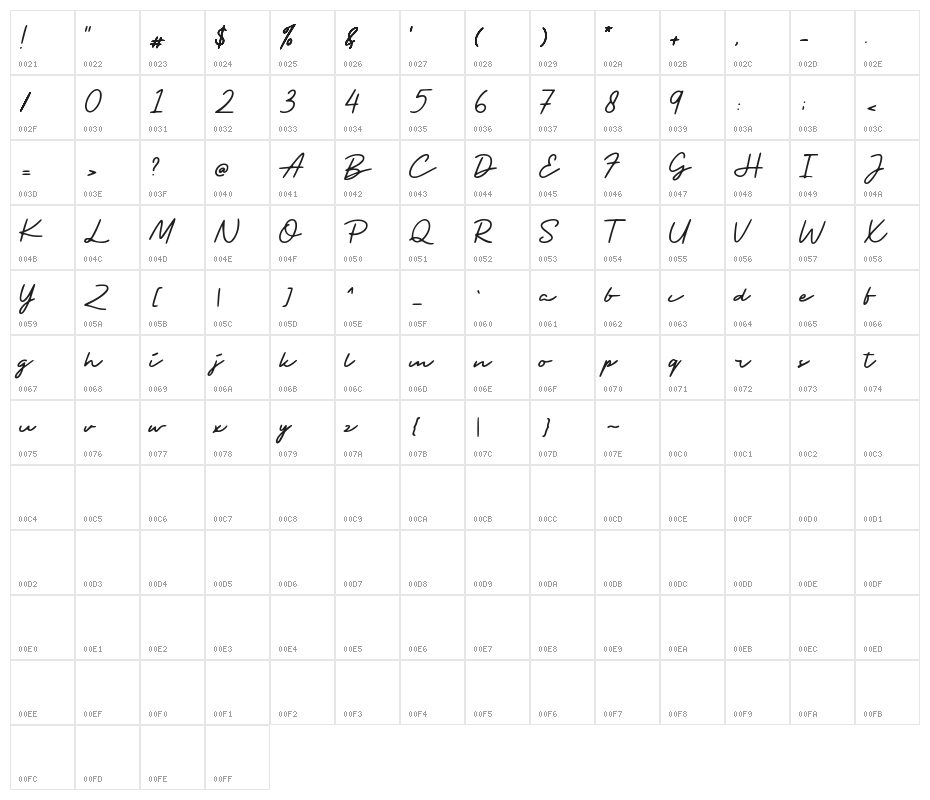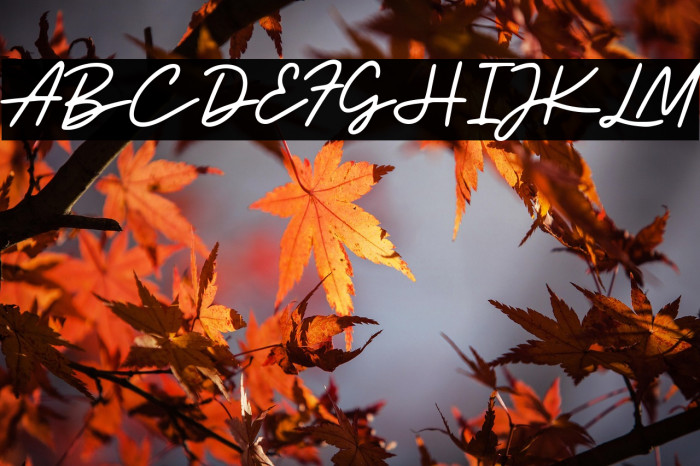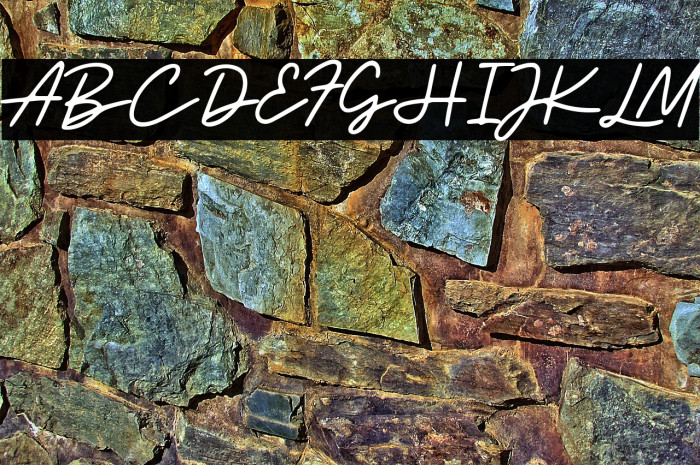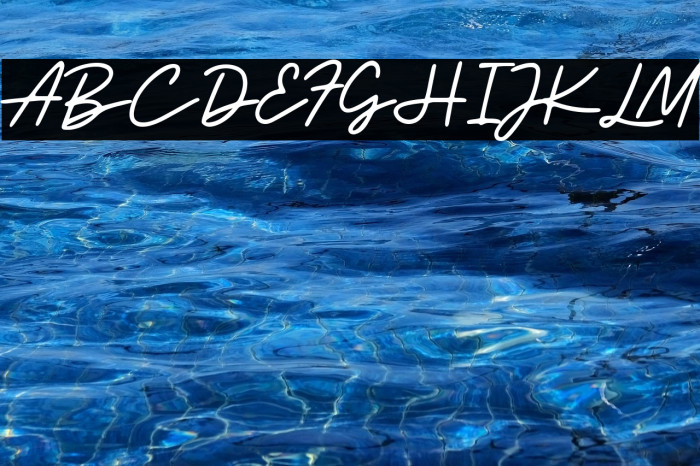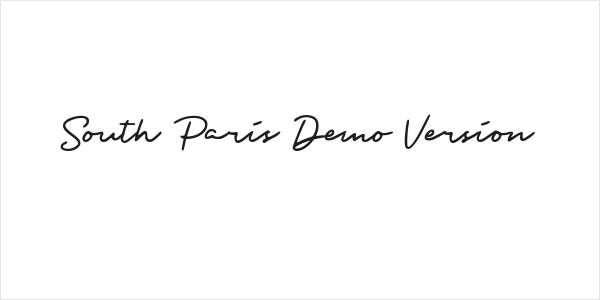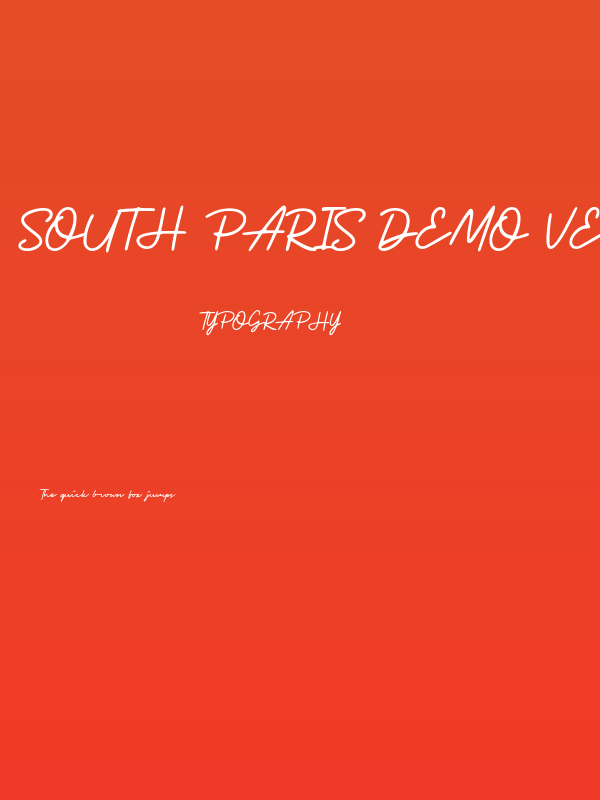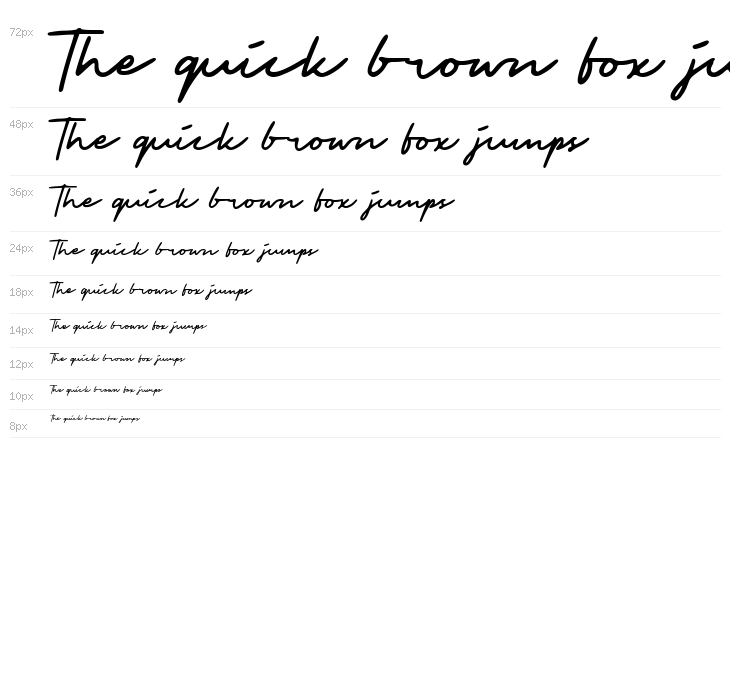
South Paris Demo Version Font
South Paris Demo Version Description
This font exudes a casual elegance with its fluid, cursive style. The characters are connected in a smooth, flowing manner, reminiscent of handwritten script. The uppercase letters are slightly more pronounced, with graceful loops and curves that add a touch of sophistication. The lowercase letters maintain a consistent flow, enhancing readability while preserving the font's artistic flair. Numbers and special characters are crafted with the same attention to detail, ensuring a cohesive look across all text elements. The overall appearance is both stylish and approachable, making it suitable for a variety of design projects.